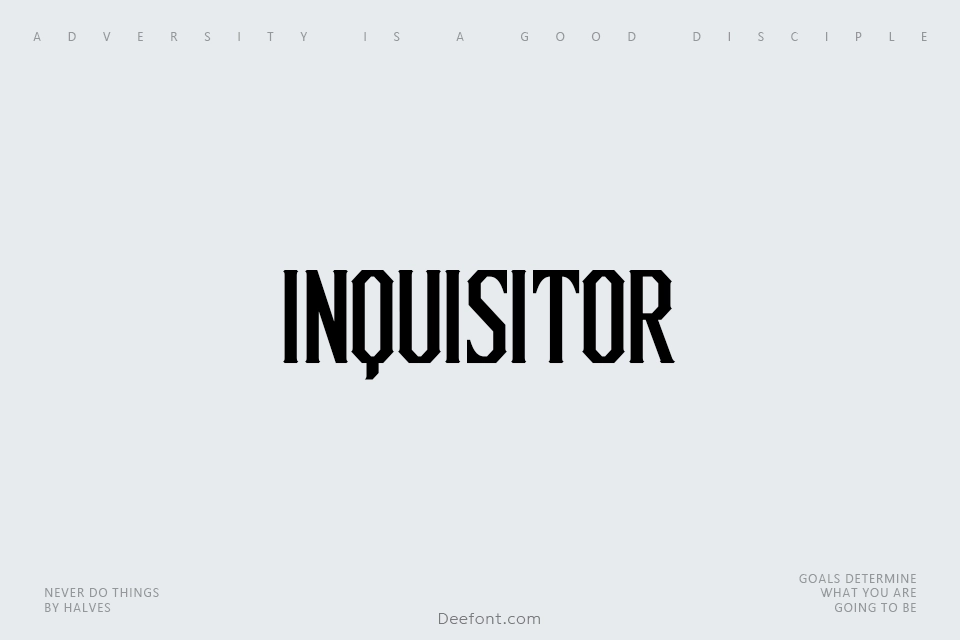
Inquisitor Font Family
Inquisitor is a tall, thin typeface with a basic gothic aesthetic, inspired by Dark Heresy sub-titles from Fantasy Flight Games. This decorative display font features full alphabet, numerics, extended punctuation, and euro symbols across regular, bold, italic, and bold-italic weights. Perfect for creating striking gothic and medieval typography for design projects, gaming interfaces, and creative compositions that demand distinctive character presence.